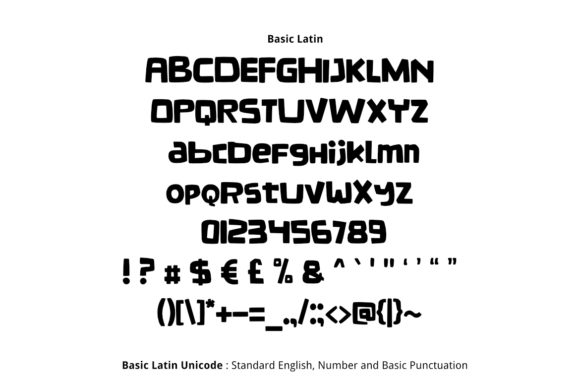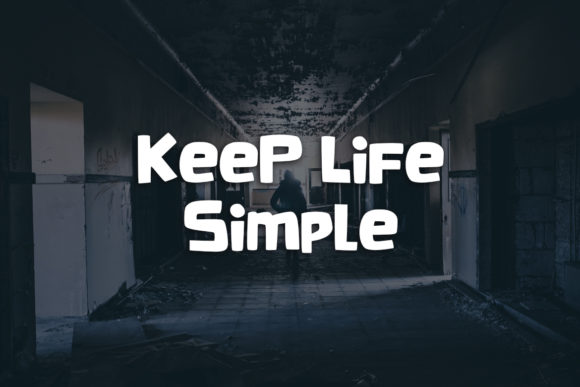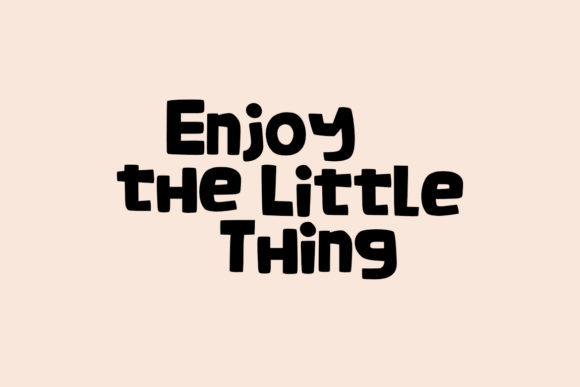
Unleash the Power of Dark Hall Font: Elevate Your Designs with a Modern and Bold Display Font
Are you tired of using the same old fonts for your designs? Do you want to make a statement and create something that stands out from the crowd? Look no further than the Dark Hall Font, a simple yet powerful display font that’s perfect for designers and crafters alike. In this article, we’ll dive into the world of Dark Hall Font and explore its features, benefits, and uses.
What is Dark Hall Font?
Dark Hall Font is a modern and bold display font that’s designed to make a statement. With its thick, sturdy letters, this font is perfect for creating eye-catching designs that demand attention. Whether you’re working on a logo, poster, or social media graphic, Dark Hall Font is the perfect choice for adding a touch of sophistication and style.
Key Features of Dark Hall Font
- Simple and Thick Lettered: Dark Hall Font features simple, thick letters that are easy to read and understand.
- Modern and Bold: This font is perfect for creating modern and bold designs that stand out from the crowd.
- Display Font: Dark Hall Font is specifically designed as a display font, making it perfect for headlines, titles, and other attention-grabbing elements.
- Versatile: This font can be used for a wide range of design projects, from logos and posters to social media graphics and more.
Benefits of Using Dark Hall Font
So why choose Dark Hall Font for your design projects? Here are just a few benefits of using this powerful display font:
- Adds Impact: Dark Hall Font adds a touch of sophistication and style to any design, making it perfect for creating eye-catching graphics.
- Improves Readability: The thick, sturdy letters of Dark Hall Font make it easy to read and understand, even at small sizes.
- Increases Versatility: This font can be used for a wide range of design projects, from logos and posters to social media graphics and more.
Uses of Dark Hall Font
So what can you use Dark Hall Font for? The possibilities are endless! Here are just a few ideas to get you started:
- Logos: Use Dark Hall Font to create a bold and eye-catching logo for your business or brand.
- Posters: Create stunning posters with Dark Hall Font, perfect for advertising events, products, or services.
- Social Media Graphics: Use Dark Hall Font to create eye-catching social media graphics that stand out from the crowd.
- Headlines: Add a touch of sophistication and style to your headlines with Dark Hall Font.
Tips for Using Dark Hall Font
Here are a few tips for getting the most out of Dark Hall Font:
- Use it Sparingly: Dark Hall Font is a bold and attention-grabbing font, so use it sparingly to avoid overwhelming your design.
- Pair it with Other Fonts: Experiment with pairing Dark Hall Font with other fonts to create a unique and eye-catching design.
- Experiment with Colors: Try out different colors and color combinations to find the perfect look for your design.
| Font Name | Dark Hall Font |
| Author | YandiDesigns |
In conclusion, Dark Hall Font is a powerful and versatile display font that’s perfect for designers and crafters alike. With its simple yet bold letters, this font is sure to make a statement and add a touch of sophistication and style to any design. Whether you’re working on a logo, poster, or social media graphic, Dark Hall Font is the perfect choice for creating eye-catching designs that stand out from the crowd.